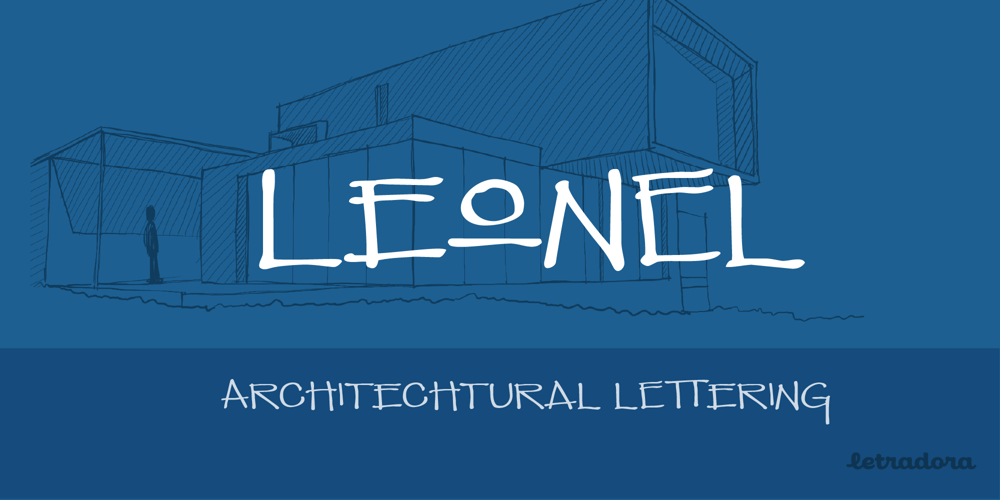
Leonel Px Font Family was designed by Leonel Terres, Kemie Guaida Ortega and published by Letradora. Leonel Px contains 1 styles and family package options. Based on an architect’s handwriting with a calligraphic pen, this cool all-caps font comes with lots of alternates and a very complete character set.